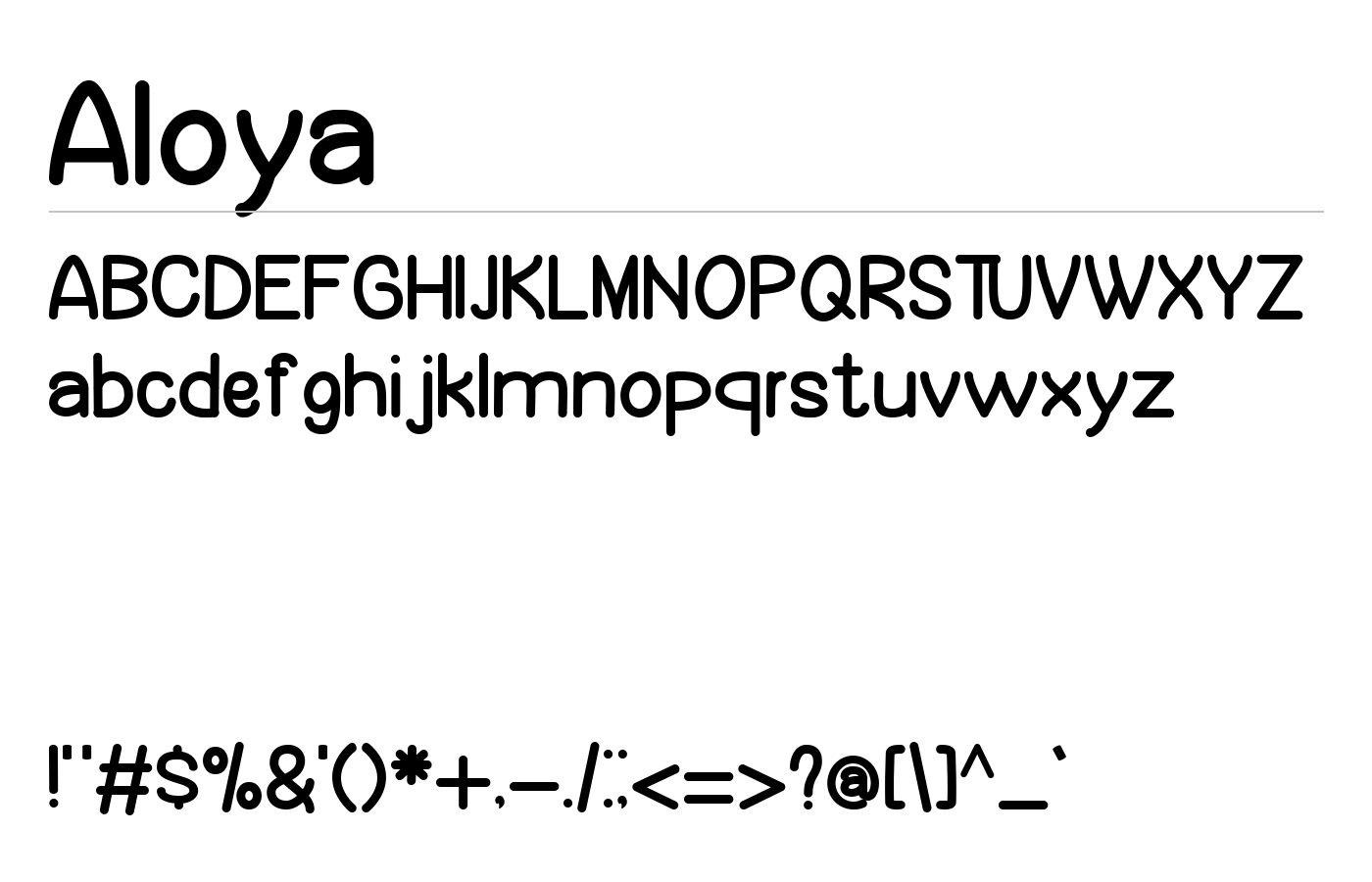
Aloya is a playful and friendly sans serif font characterized by its rounded, slightly irregular letterforms that give it a hand-drawn, approachable feel. Its medium weight and open spacing make it easy to read while maintaining a casual, informal personality, perfect for children's books, creative projects, and casual branding. This font works well wherever a warm, inviting, and unique look is desired.
Aloya Font
About Aloya Font